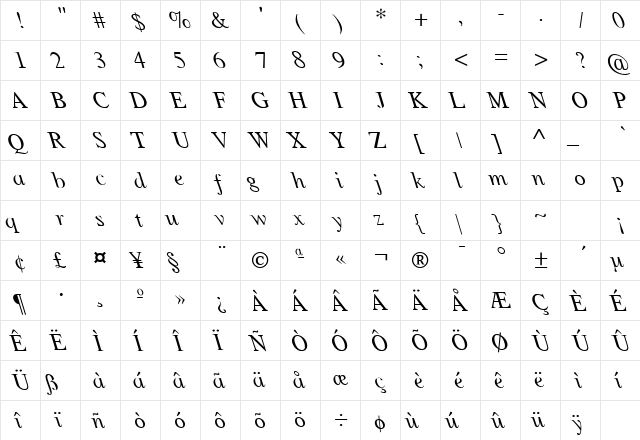
Dunford Reverse Italic Regular
Design Context for Dunford Reverse Italic Typeface
Dunford Reverse Italic takes a measured approach to typography — its balanced proportions and neutral character make it a reliable workhorse for both digital and print work. The dynamic lean of this cut emphasises speed and emphasis in any layout.
Pro Tip: Try Dunford Reverse Italic for annotation and caption copy alongside an upright companion — the contrast in angle creates a dynamic but ordered typographic system.